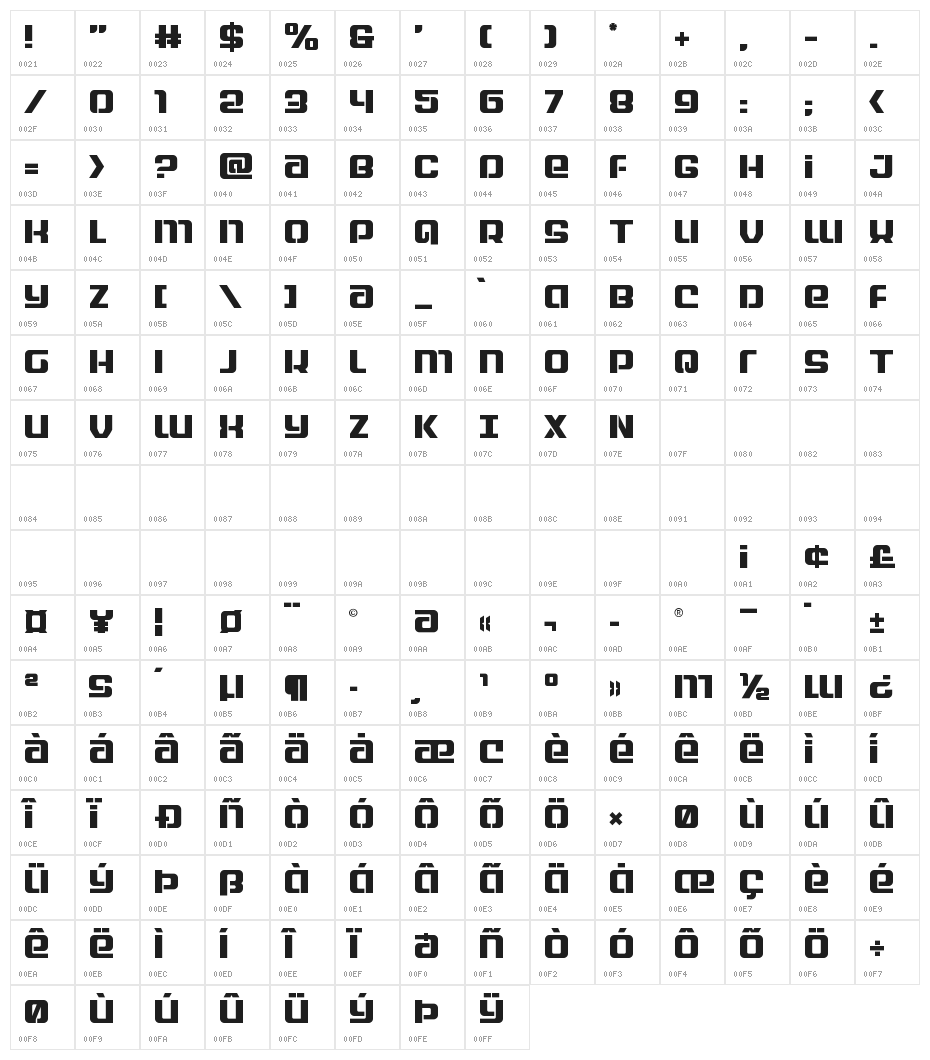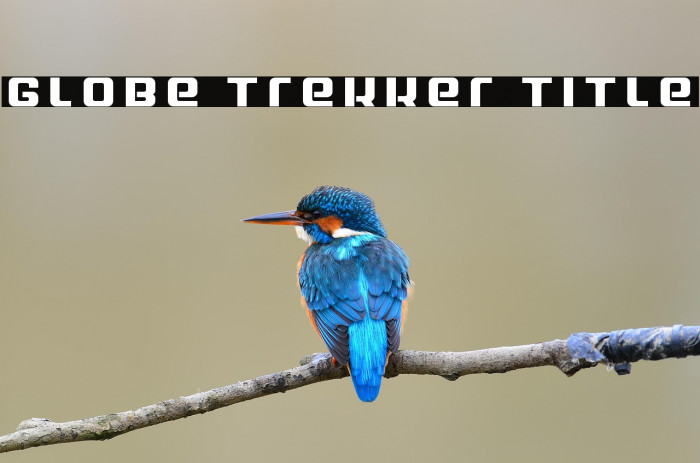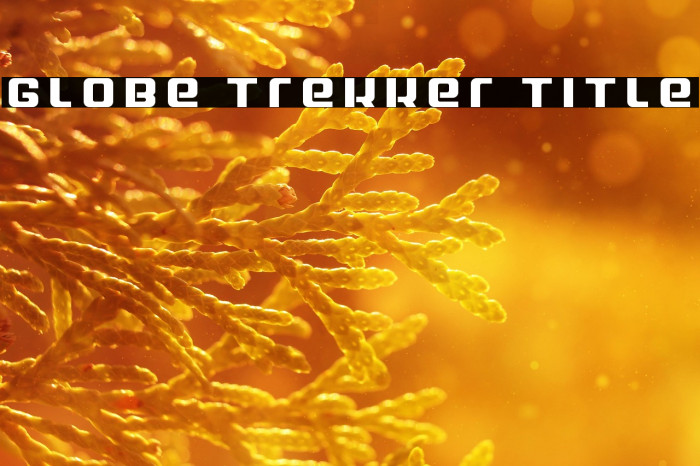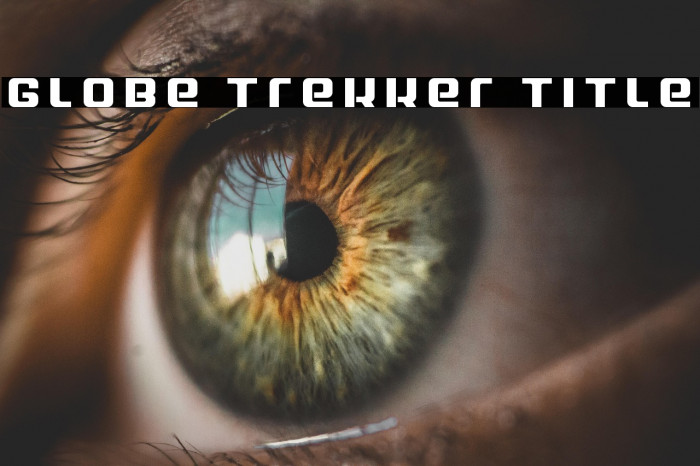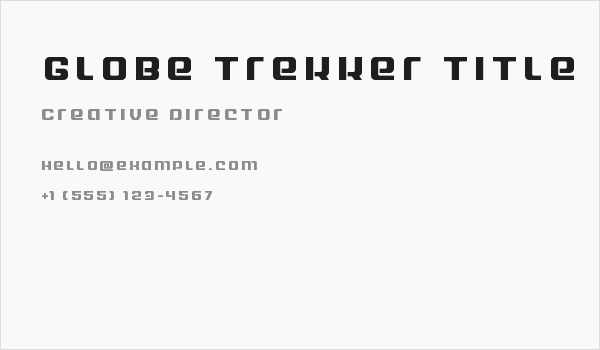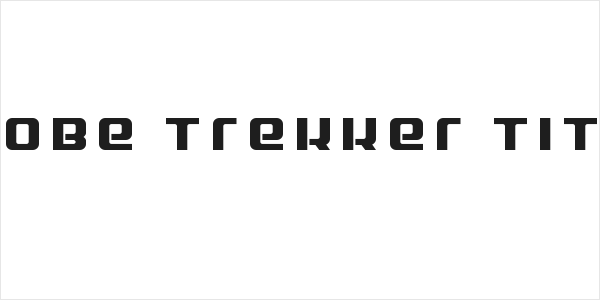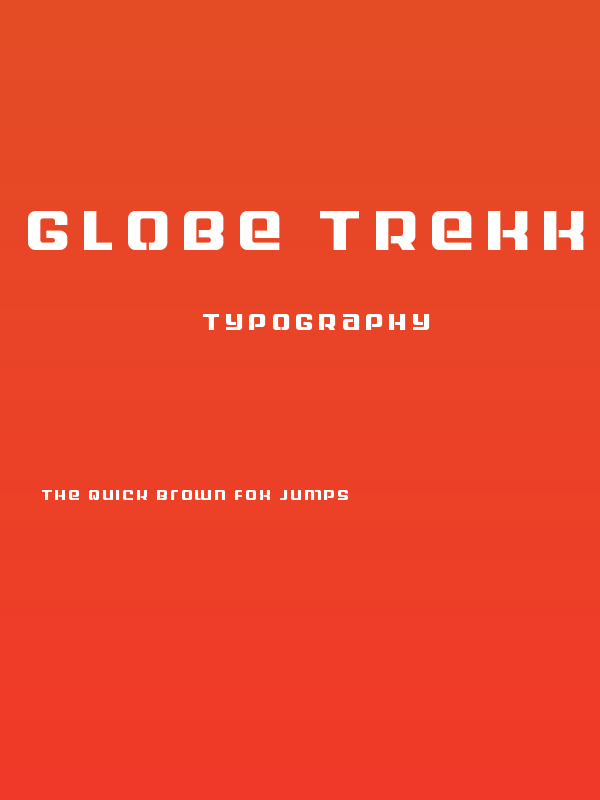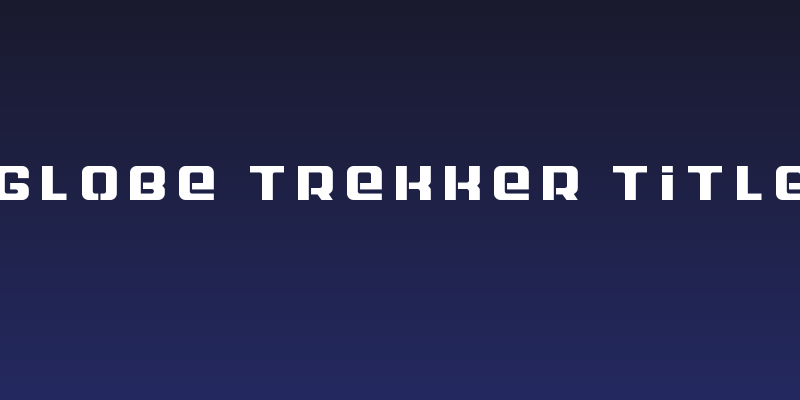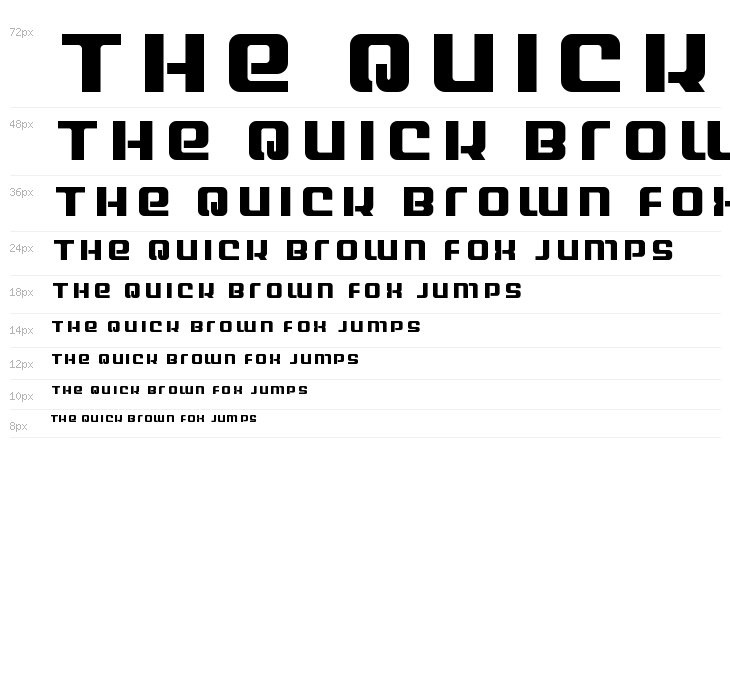
Globe Trekker Title Font
Globe Trekker Title Description
This font features a bold, geometric design with a modern and futuristic aesthetic. The characters are constructed with a strong, uniform thickness and have a distinct, block-like appearance. The angular cuts and rounded corners give it a unique, tech-inspired look. The uppercase and lowercase letters maintain a consistent style, enhancing readability while adding a touch of sophistication. The numerals and special characters are designed to match the overall theme, making it versatile for various applications.
Proposed ProjectsIdeal for technology branding, video game titles, sci-fi themed projects, and modern advertising.